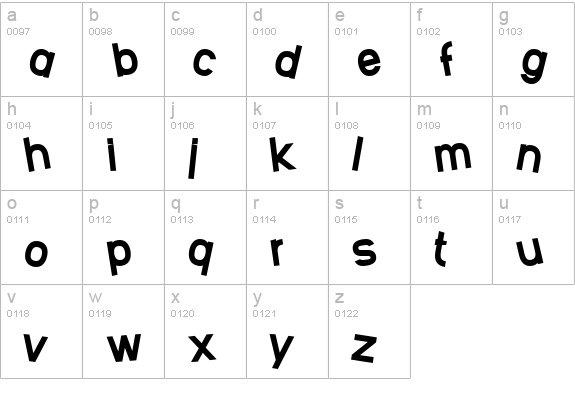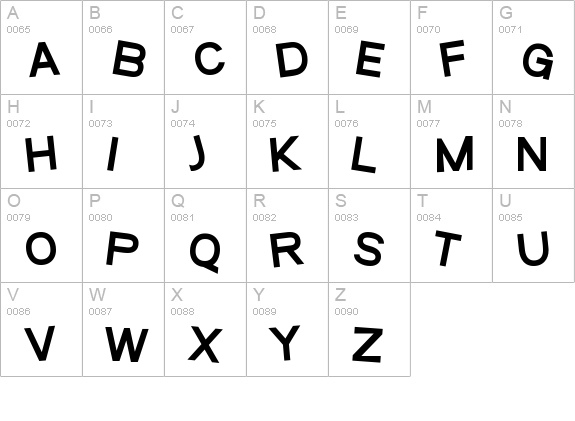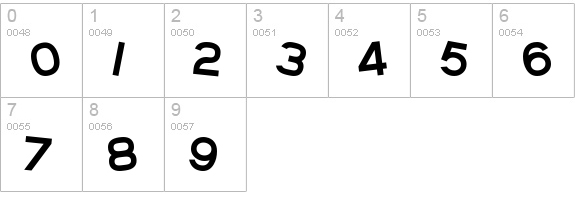
SF Beaverton Heavy Font Details
SF Beaverton Heavy is a heavy, high-impact variant in the SF typeface family \xE2\x80\x94 well suited to high-impact headlines, posters, and display advertising.
SF Beaverton Heavy is a bold and dynamic font that exudes power and strength. With its sturdy and robust letterforms, this typeface commands attention and leaves a lasting impression. The sharp edges and thick strokes of SF Beaverton Heavy give it a distinctive and modern look, making it perfect for headlines, titles, and logos. What sets SF Beaverton Heavy apart is not just its striking appearance, but also the fact that it is available for free. Yes, you read that right – this incredible font can be downloaded at absolutely no cost! Thanks to FontsMarket.com, you can easily access this font and add it to your design arsenal without breaking the bank. Whether you are a professional designer, a student, or simply someone who appreciates the beauty of typography, SF Beaverton Heavy is a must-have. Its versatility allows it to be used in a variety of design projects, from posters and advertisements to websites and social media graphics. So why wait? Take advantage of this amazing opportunity to enhance your designs with SF Beaverton Heavy. Download it for free at FontsMarket.com and watch as your creations come to life with the bold and impactful presence of this remarkable font.